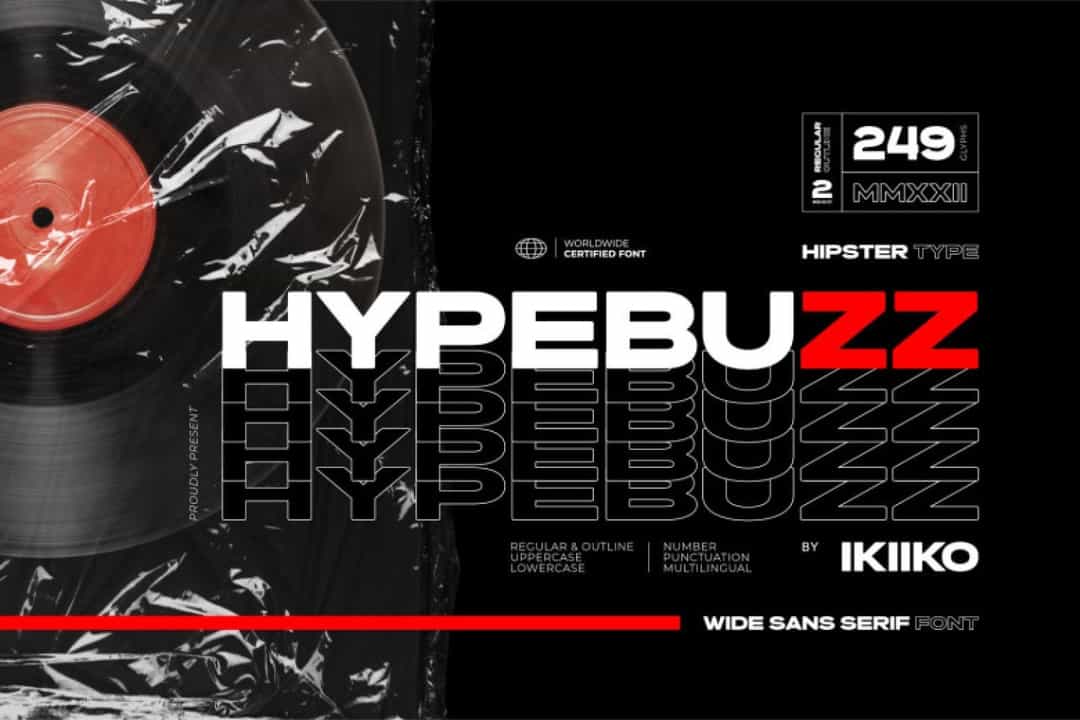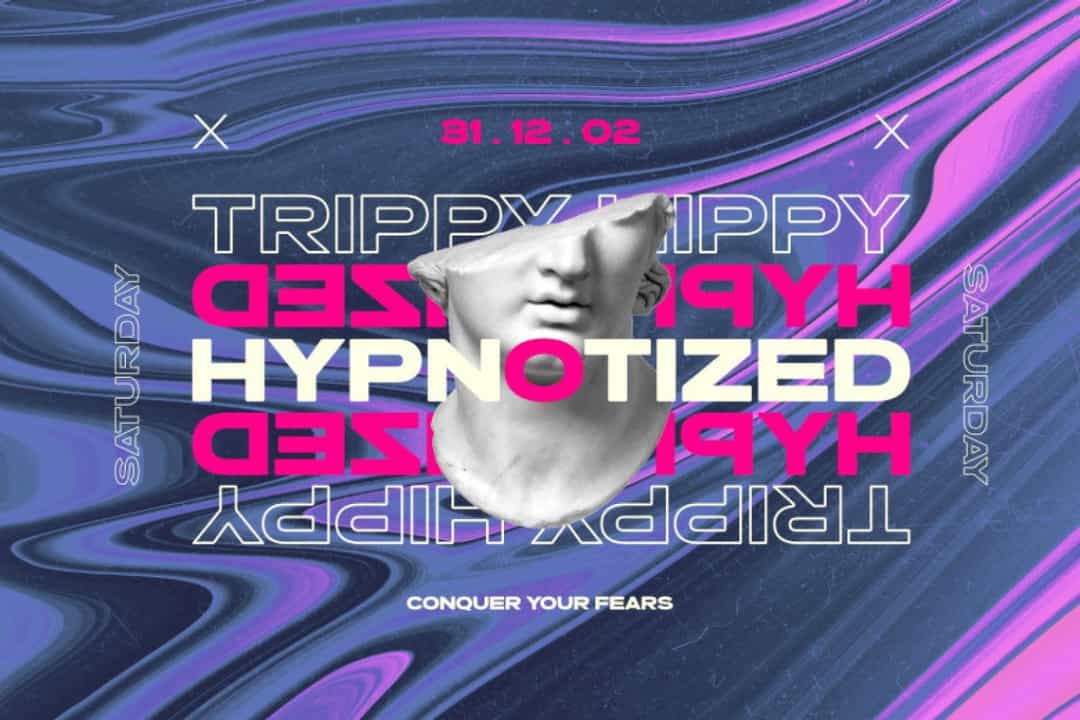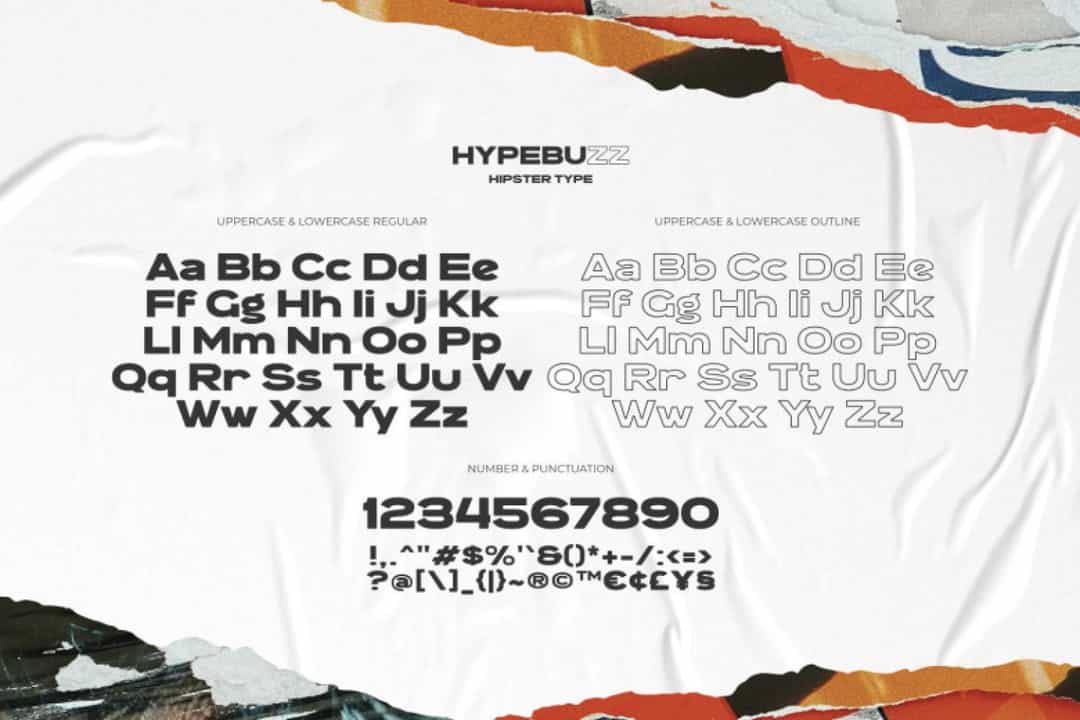
Hypebuzz Hipster Type was developed by ikiiko. Hypebuzz is a modern sans serif font with an iconic broad shape and feel reminiscent of streetwear hip-hop culture and urban youth culture. Hypebuzz features two varieties of letters which allow users to experiment creatively when writing words using Hypebuzz.